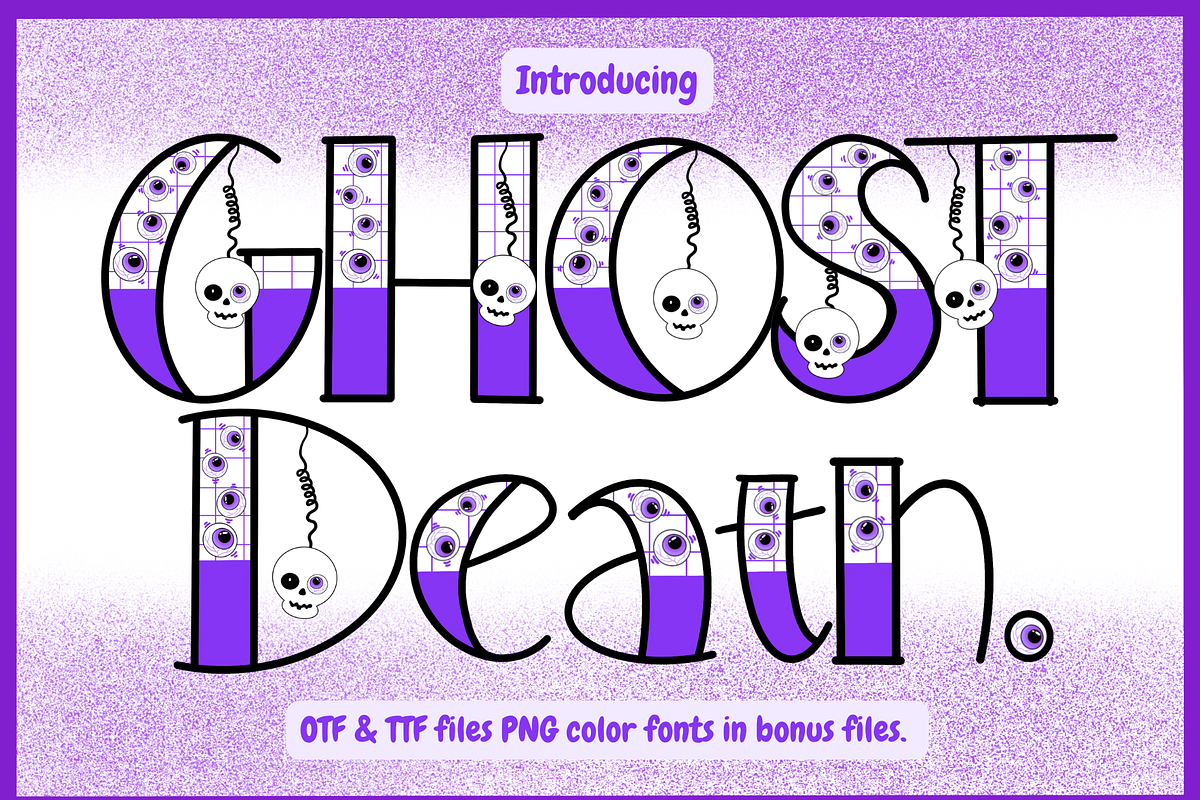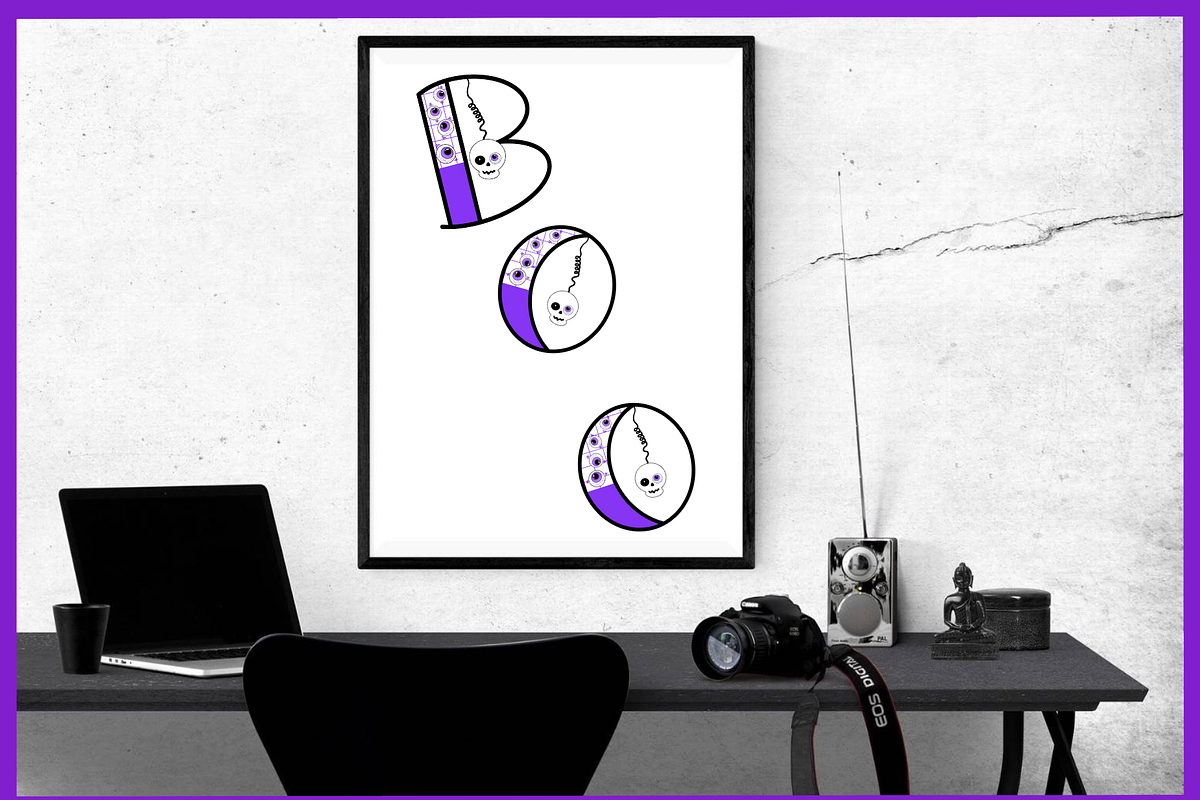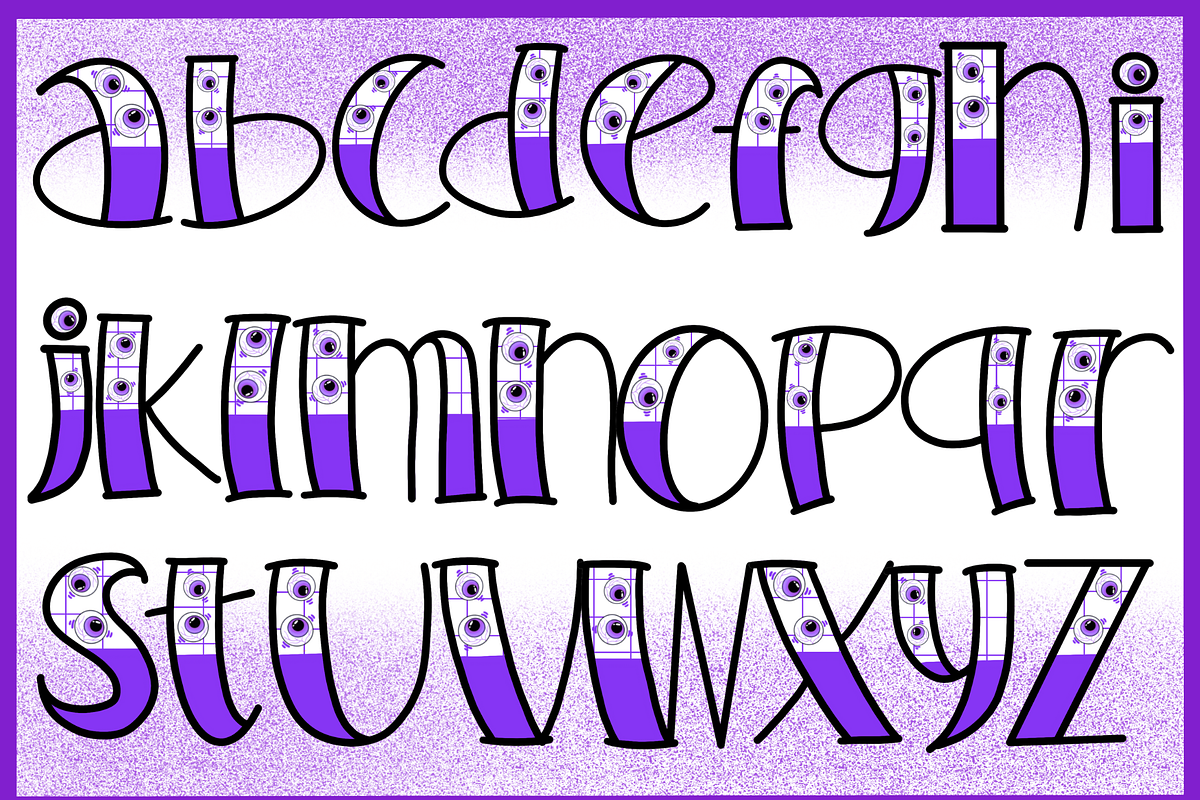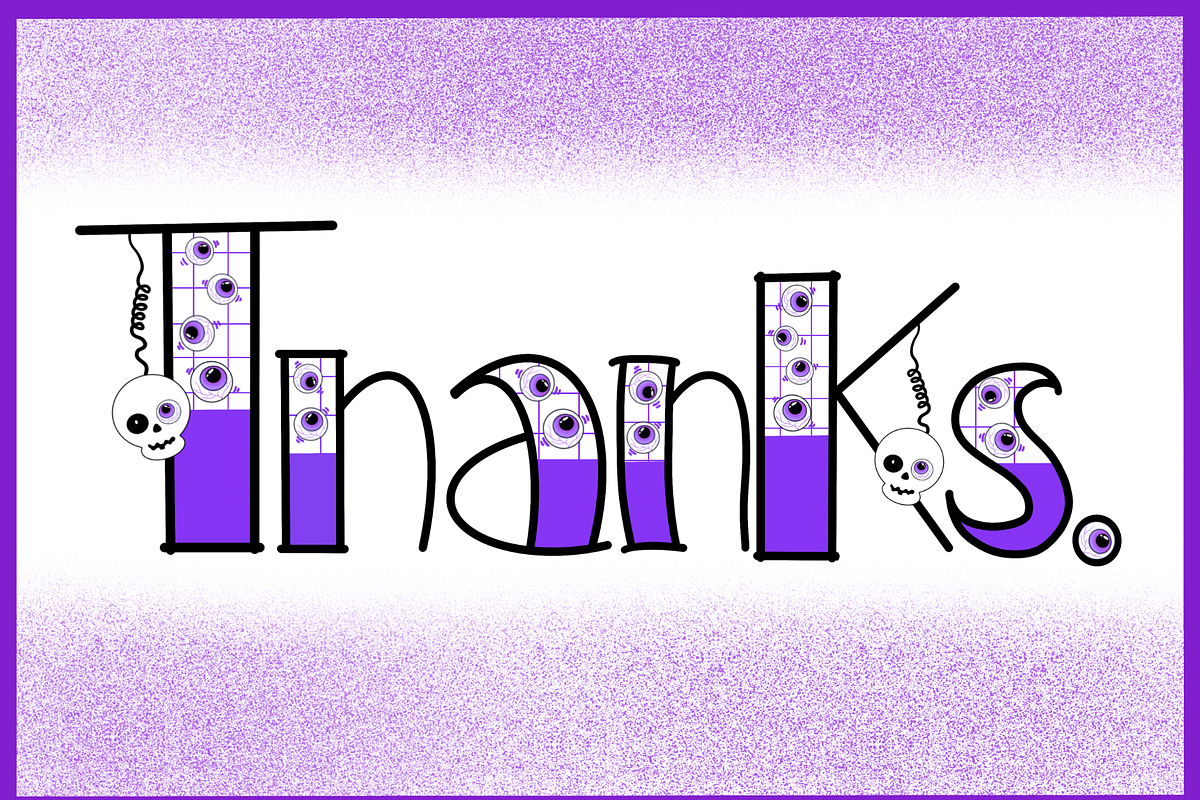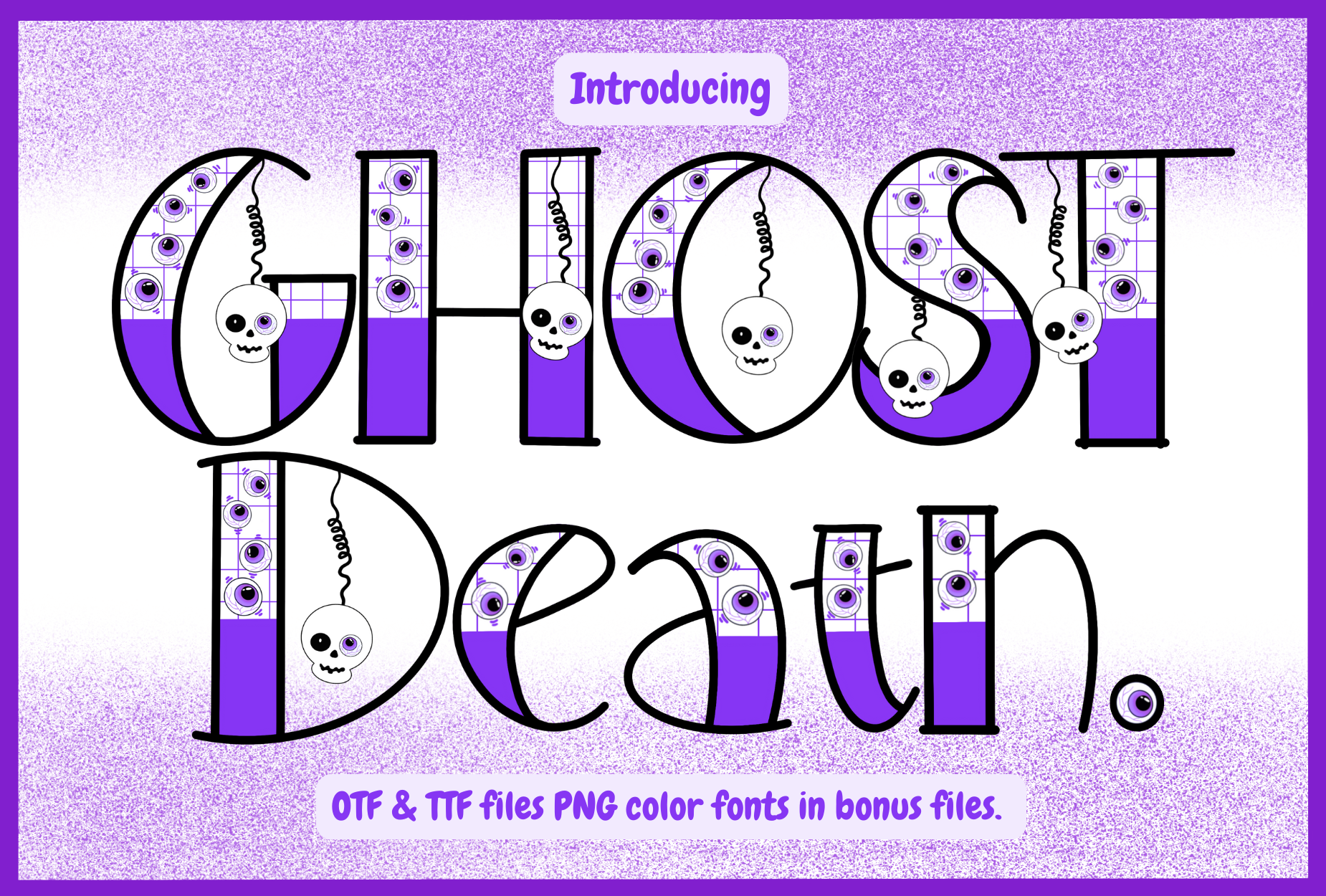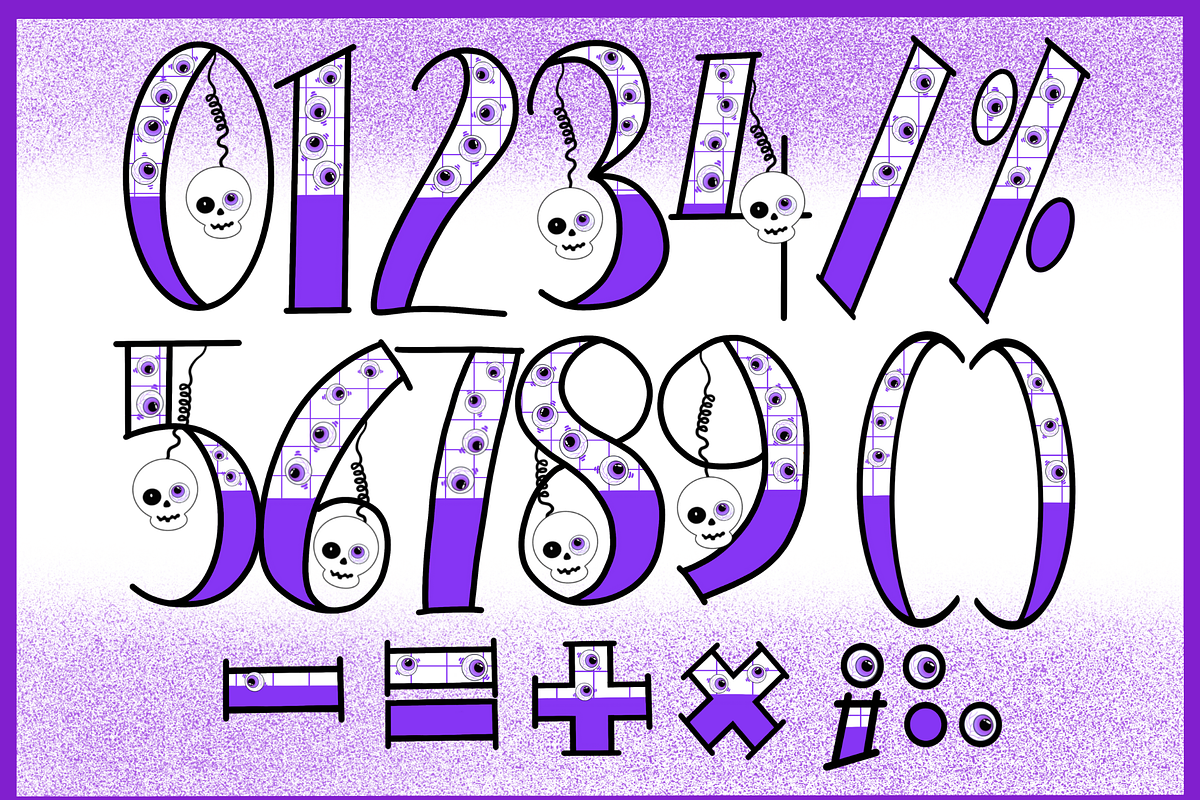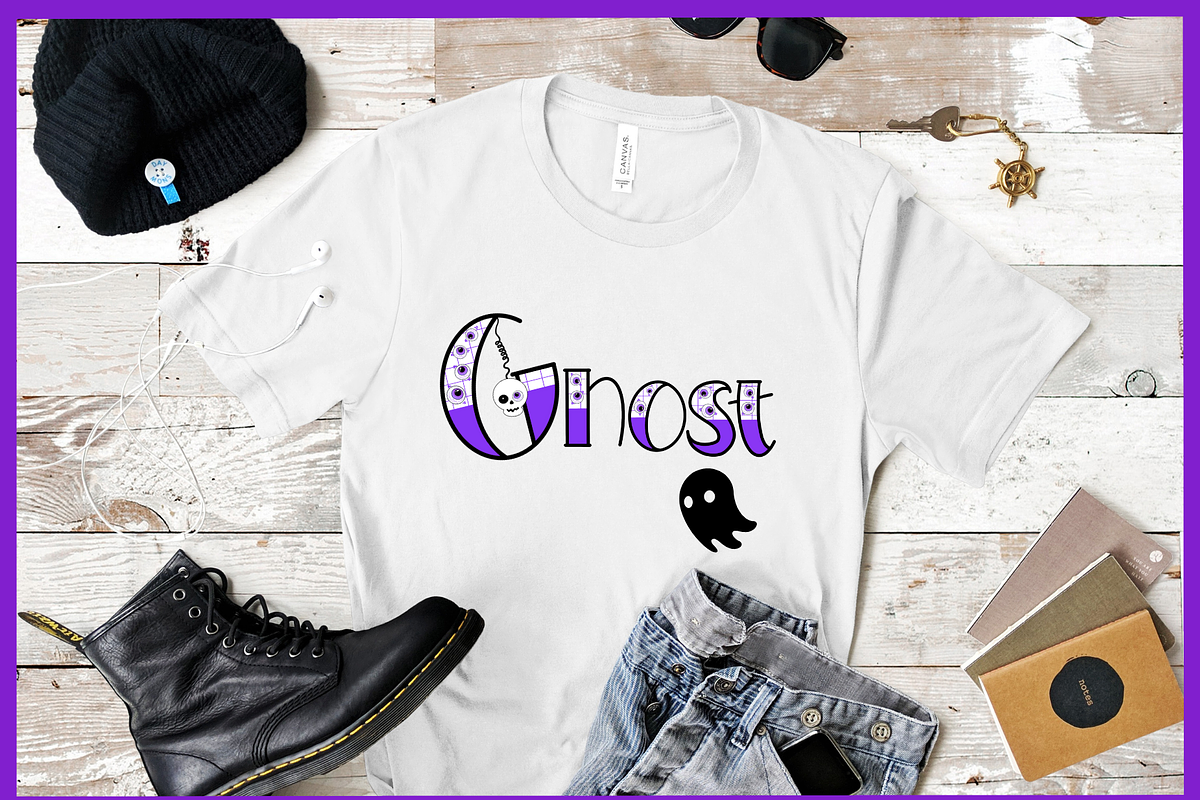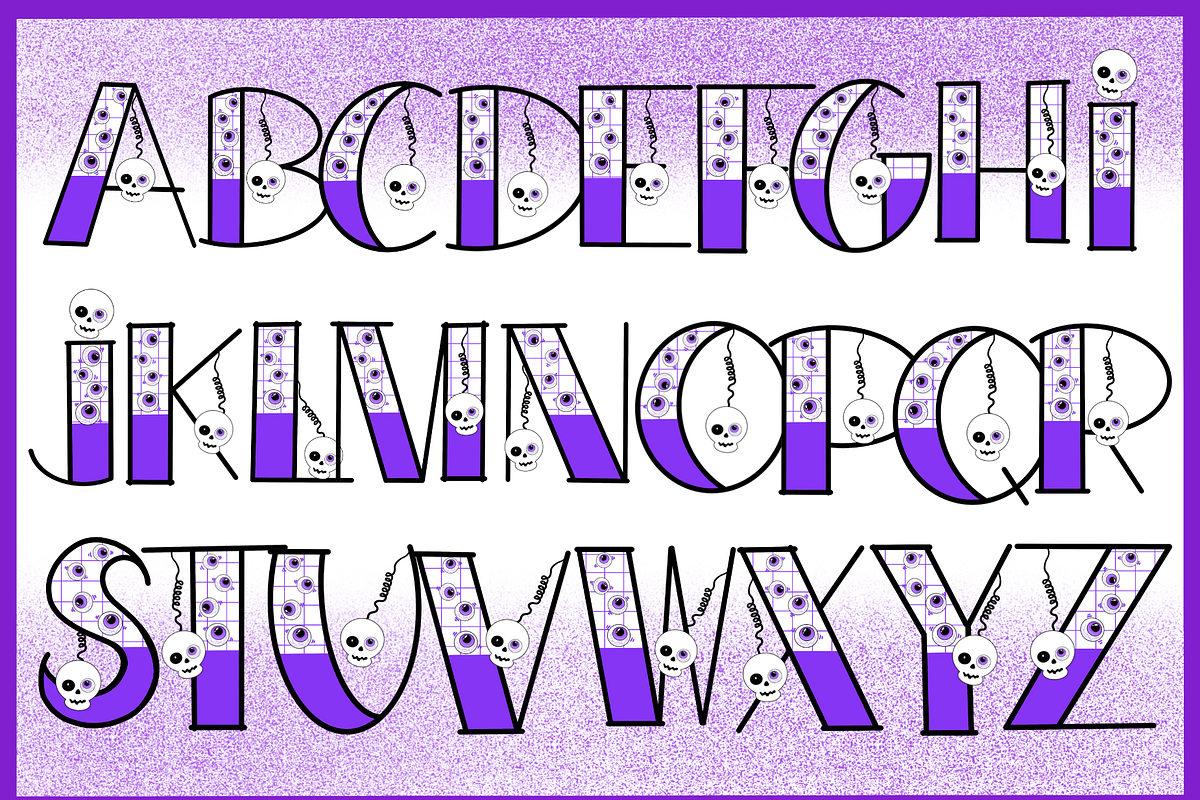
Ghost Death is a spooky and playful font combining creepy charm with cartoonish flair. Its bold black outlines are filled with a grid of wide-eyed sockets and dangling skulls, while the purple lower half adds a vibrant contrast.